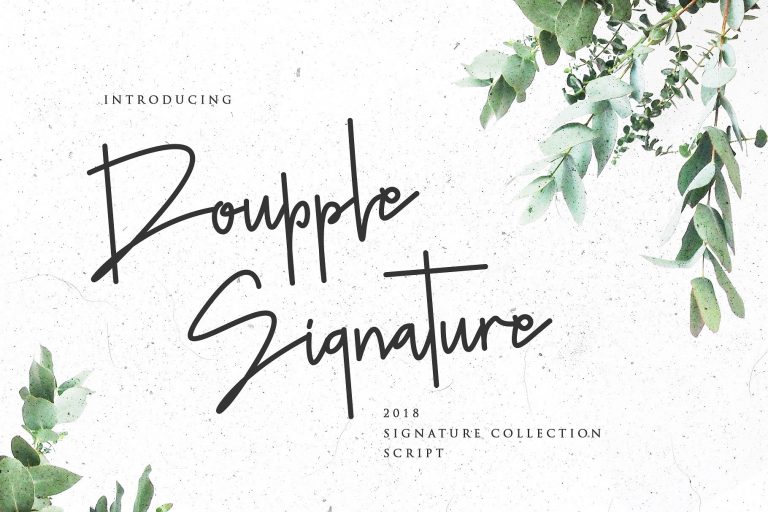
Doupple Signature Font
Connecting signature font, designed to convey elegance and style. It is slender, feminine and friendly. Introducing Doupple Font! It is designed by Dierstudio. Doupple is typographic lettering that will be perfect for any design project such as logos & branding, invitation, stationery, wedding designs, social media posts, advertisements, product packaging, product designs, label, photography, watermark, special events or anything that need that authentic handwriting taste.